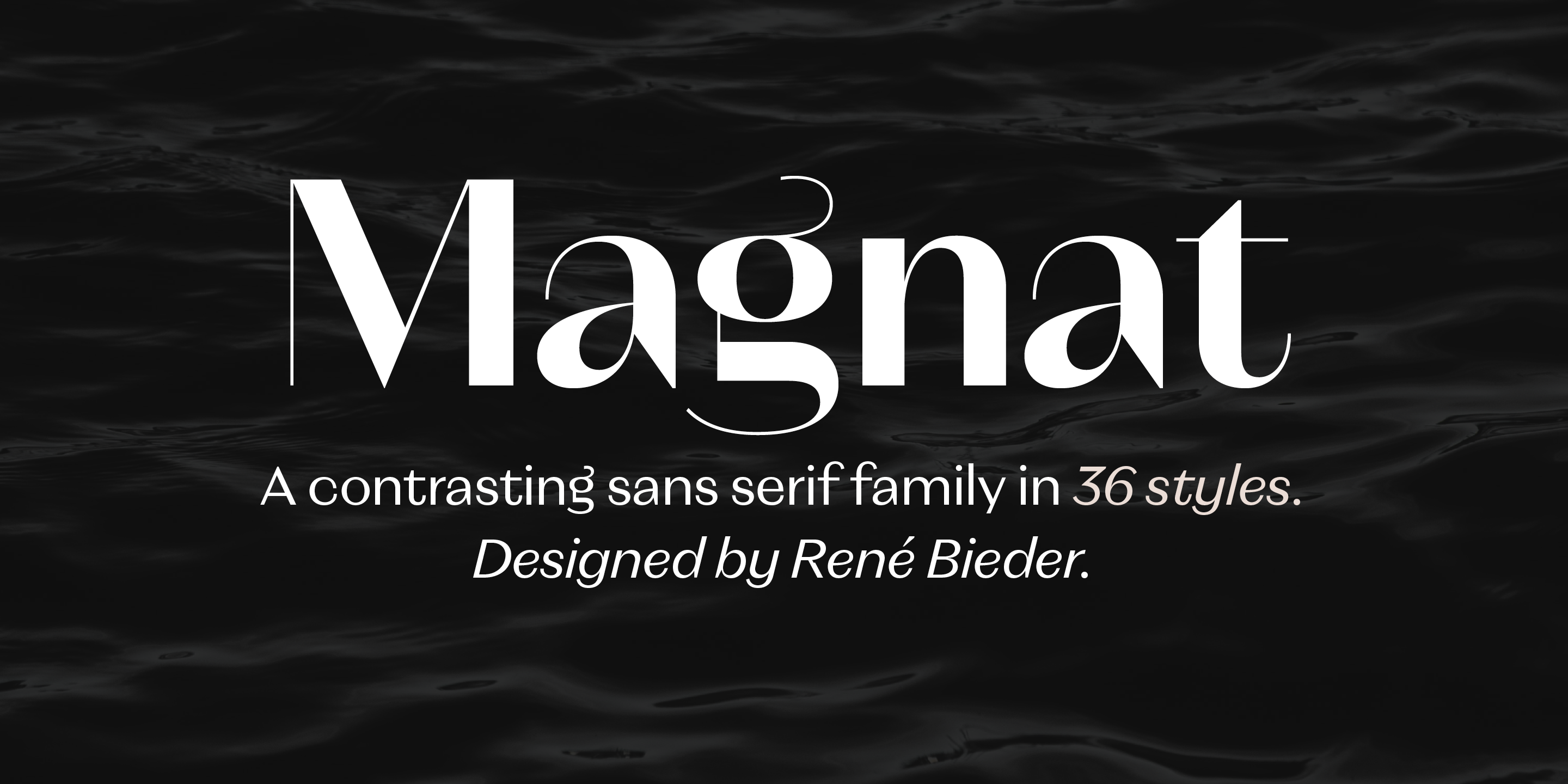
Magnat Font is perfect for luxury business empire branding, high-end financial services, premium corporate presentations, exclusive private club signage, wealthy lifestyle magazines, elite investment firms, prestigious award ceremonies, and distinguished design projects that require commanding typography with magnate authority character and financial elite sophistication.
This Magnat Font is exciting because it embodies the power and influence of business magnates with bold, authoritative letterforms that convey wealth and corporate dominance, featuring strong character construction that reflects the commanding presence of financial leaders while maintaining exceptional readability for premium business applications and elite communications.
The Magnat Font family includes commanding weights with executive styling, complete character sets with powerful uppercase and lowercase letters, wealth numerals, authoritative punctuation, and business symbols that provide comprehensive typography solutions for luxury business and financial design projects requiring authentic magnate aesthetics and elite appeal.
Perfect for creating authoritative business communications and elite financial brand identities, Magnat Font Free Download delivers the commanding typography that transforms text into powerful expressions of business empire and financial magnate excellence. This distinctive typeface captures the essence of corporate leadership and financial power, making it essential for projects celebrating business success, financial achievement, corporate authority, and any design requiring commanding character with authentic magnate sophistication and timeless elite appeal that represents the pinnacle of business excellence and financial influence.